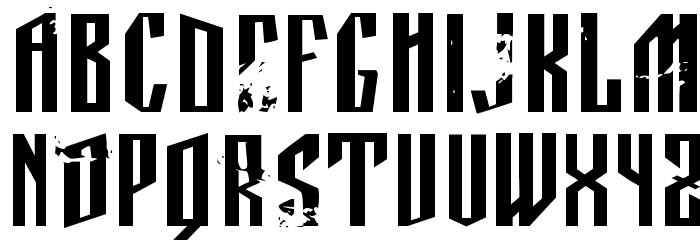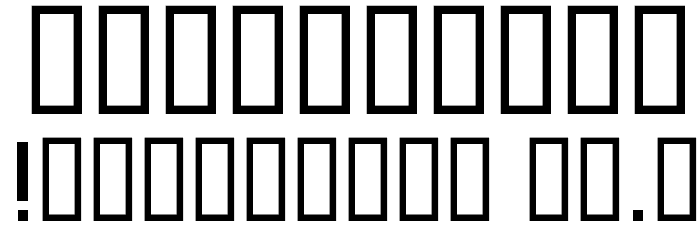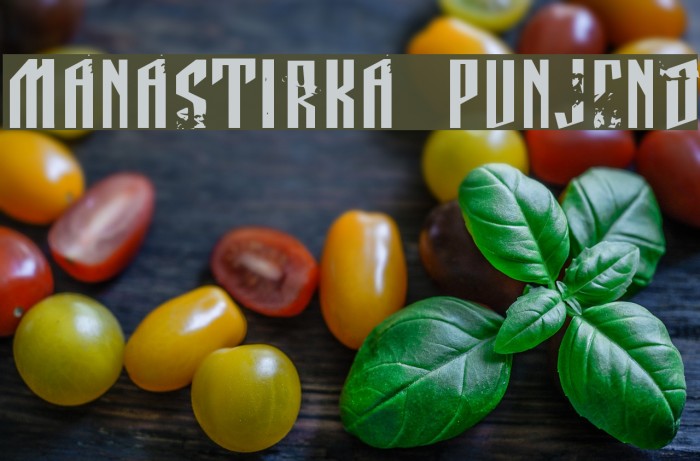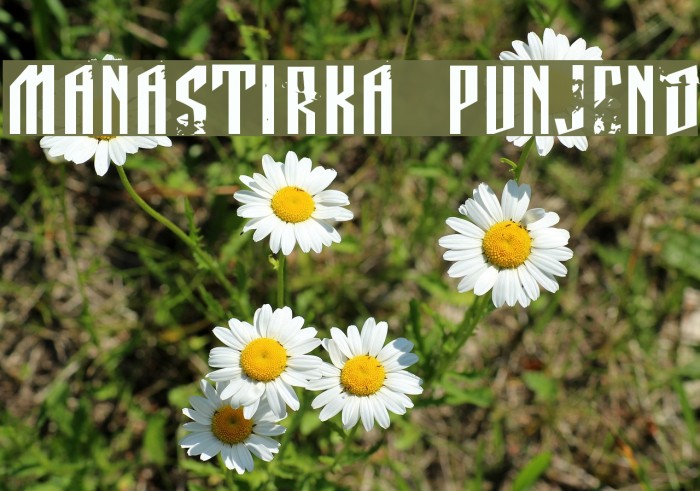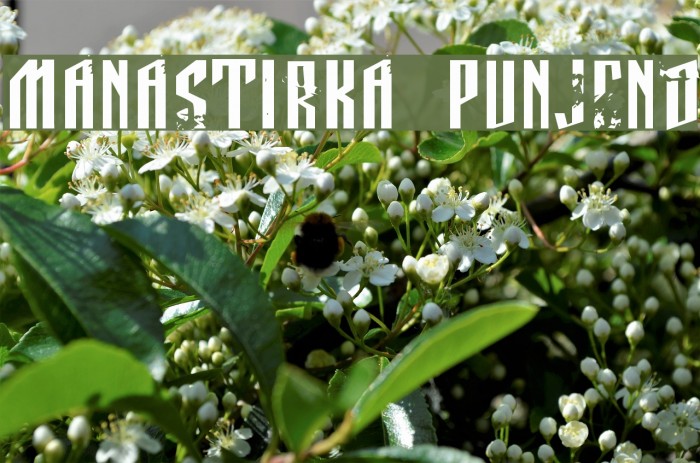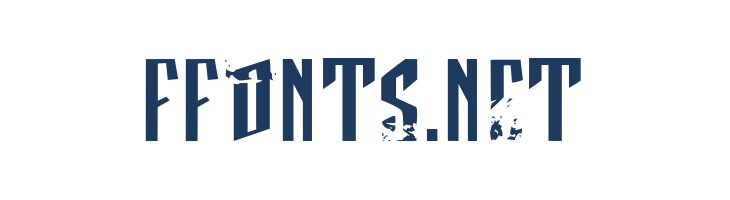
Manastirka punjeno Font
This font features a bold and angular design, characterized by sharp edges and a geometric structure. The uppercase letters are particularly striking, with a strong presence and a slightly condensed form. The lowercase letters maintain the same angular style, creating a cohesive look across the alphabet. The numbers and special characters are designed to match the boldness and geometric nature of the letters, ensuring consistency throughout. This font's unique style is enhanced by its high contrast in stroke thickness, making it ideal for attention-grabbing designs.
A bold, angular font with high contrast and geometric structure.